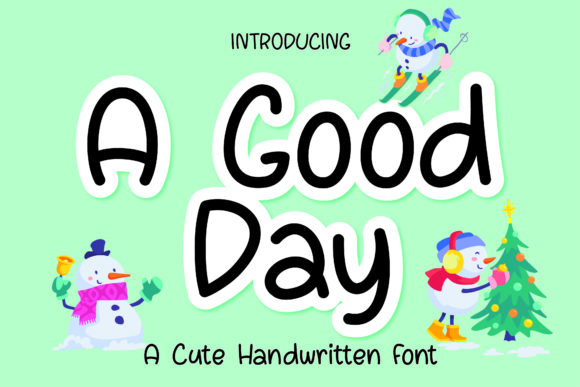
The Perfect Font for a Chalkboard Charm: A Good Day Font
Have you ever been in the middle of a design project, and suddenly, you just can’t seem to find the right font? I remember a particularly frustrating moment when I was working on a chalkboard-style poster for a client’s wedding. I wanted that perfect, handwritten look that would make the quote feel personal and authentic. That’s when I stumbled upon A Good Day Font. It was love at first sight! ✨
- ✨ A Good Day Font has an undeniably cute and simple lettered handwritten style that’s perfect for chalkboard quotes or teaching materials.
- ✅ Its authentic look adds a personal and realistic feel to your designs, making them stand out.
- ✅ The font is highly versatile and can be used for a variety of projects, from educational materials to social media graphics.
While A Good Day Font is fantastic for most projects, there are a few things to keep in mind:
- ⚠️ The font might not be the best choice for very long texts or body content, as its handwritten nature can be a bit harder to read in large blocks.
- 🤔 Some users might find that the font lacks a bit of variation in letter spacing, which could affect the overall flow of the text.
The Story Behind A Good Day Font
A Good Day Font was created with the intention of bringing a personal, handwritten feel to digital designs. The designer, inspired by traditional chalkboard writing, aimed to create a font that felt both authentic and charming. The result is a font that’s perfect for adding a touch of warmth and personality to any project.
Q: Is A Good Day Font suitable for body text?
A: While A Good Day Font is beautiful, it’s best used for short texts or headings due to its handwritten nature. For longer texts, a more traditional font might be easier to read.
Q: Does A Good Day Font include any special features?
A: A Good Day Font might include OpenType features like glyphs and stylistic alternates, depending on the version. These can add variety and interest to your designs.